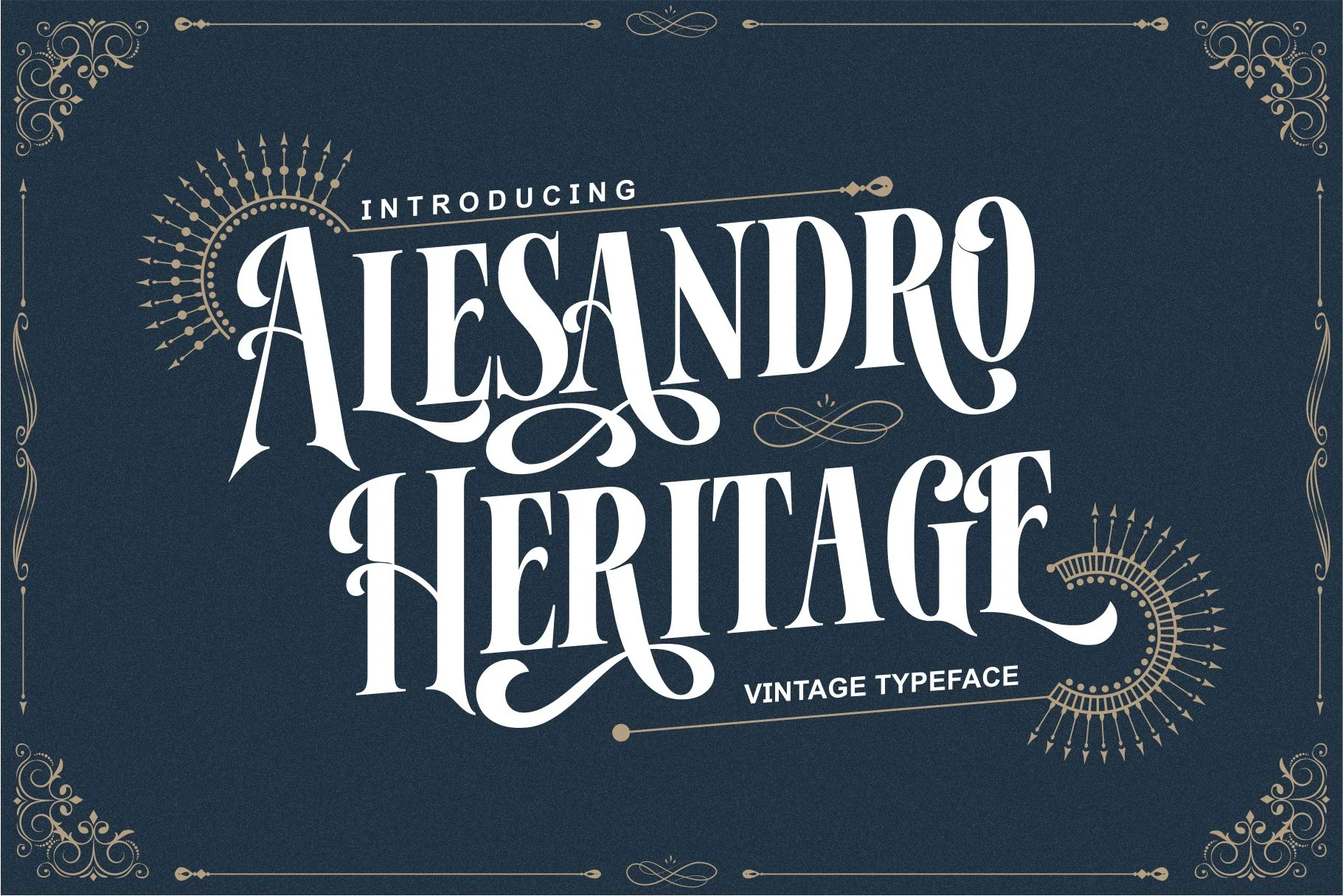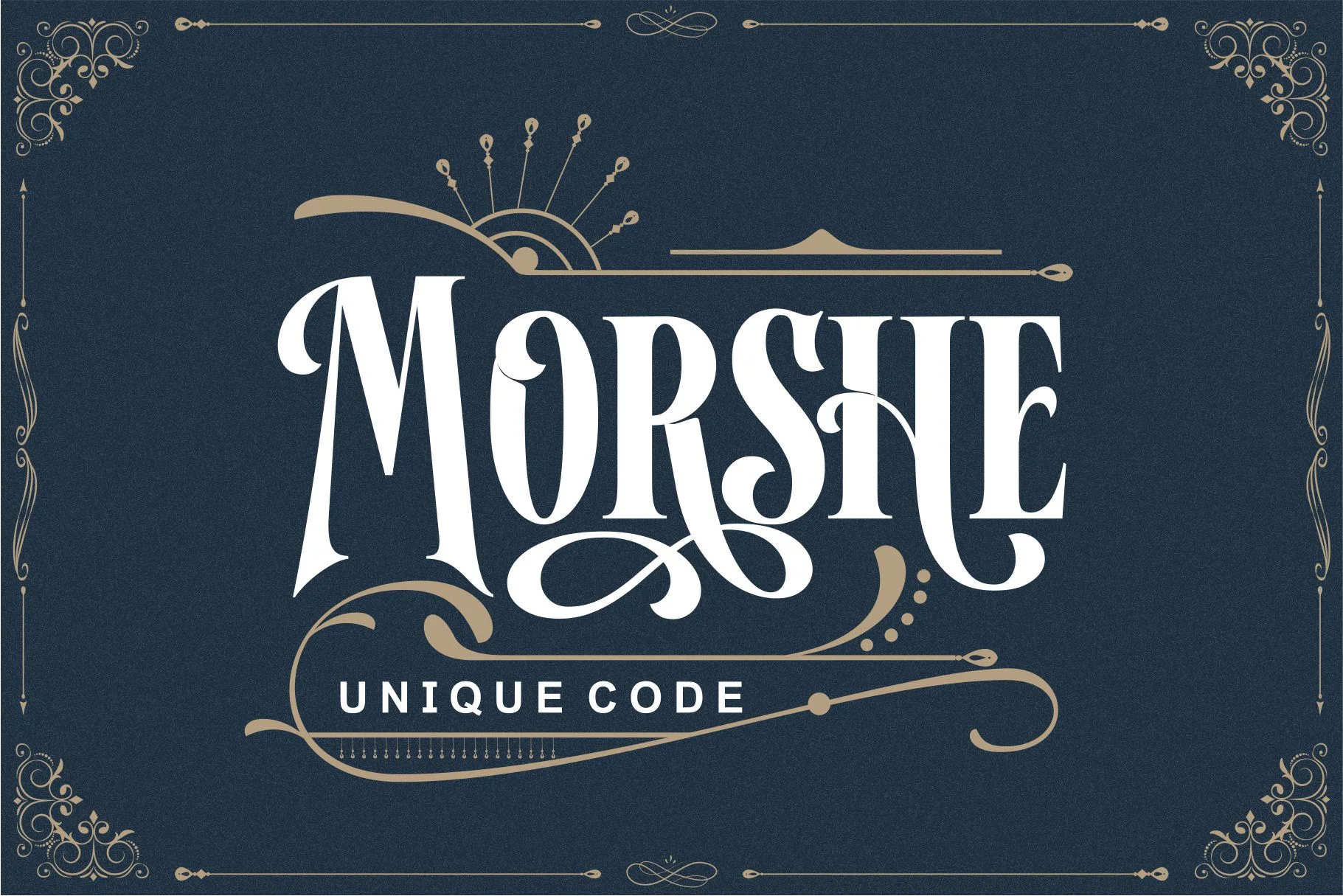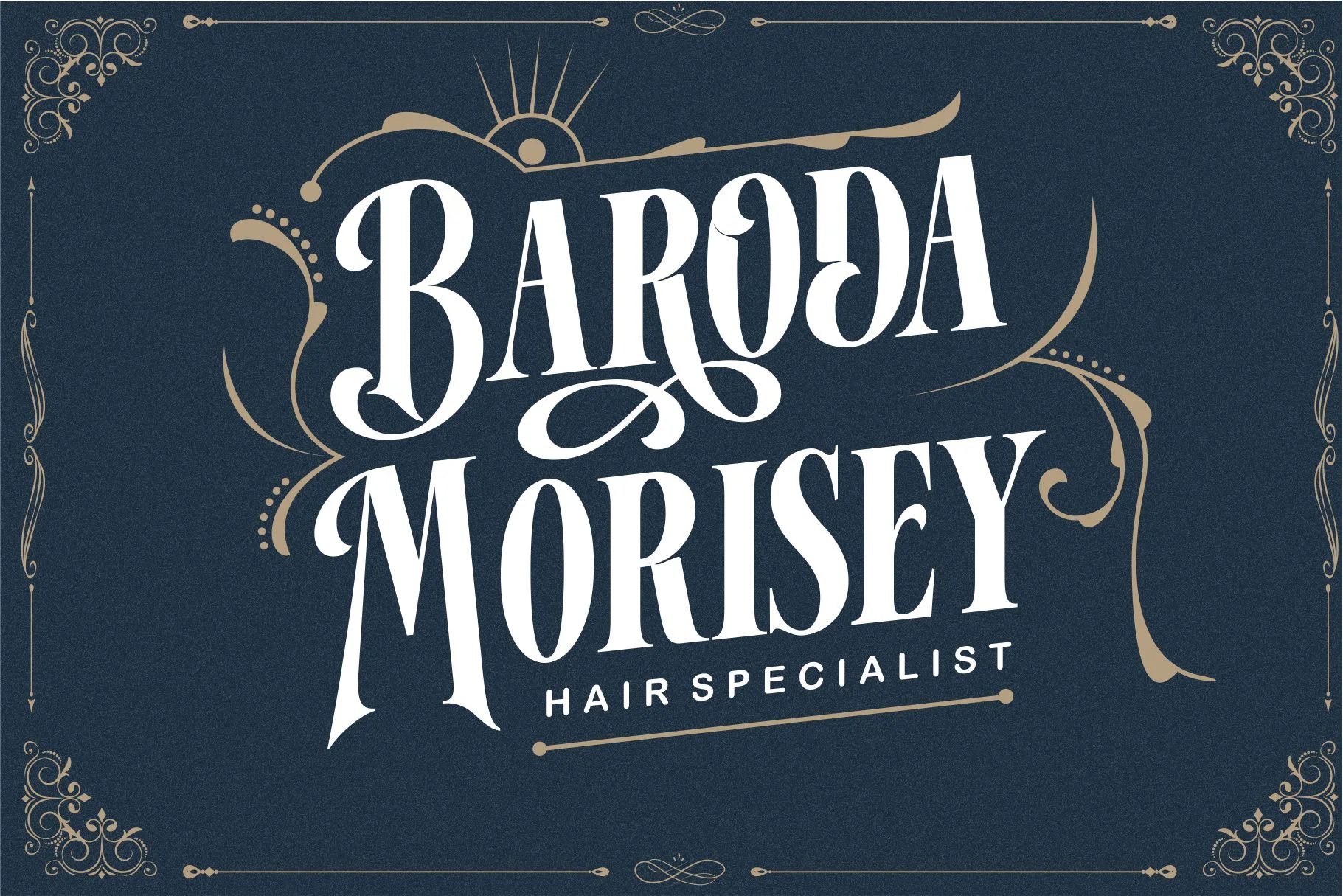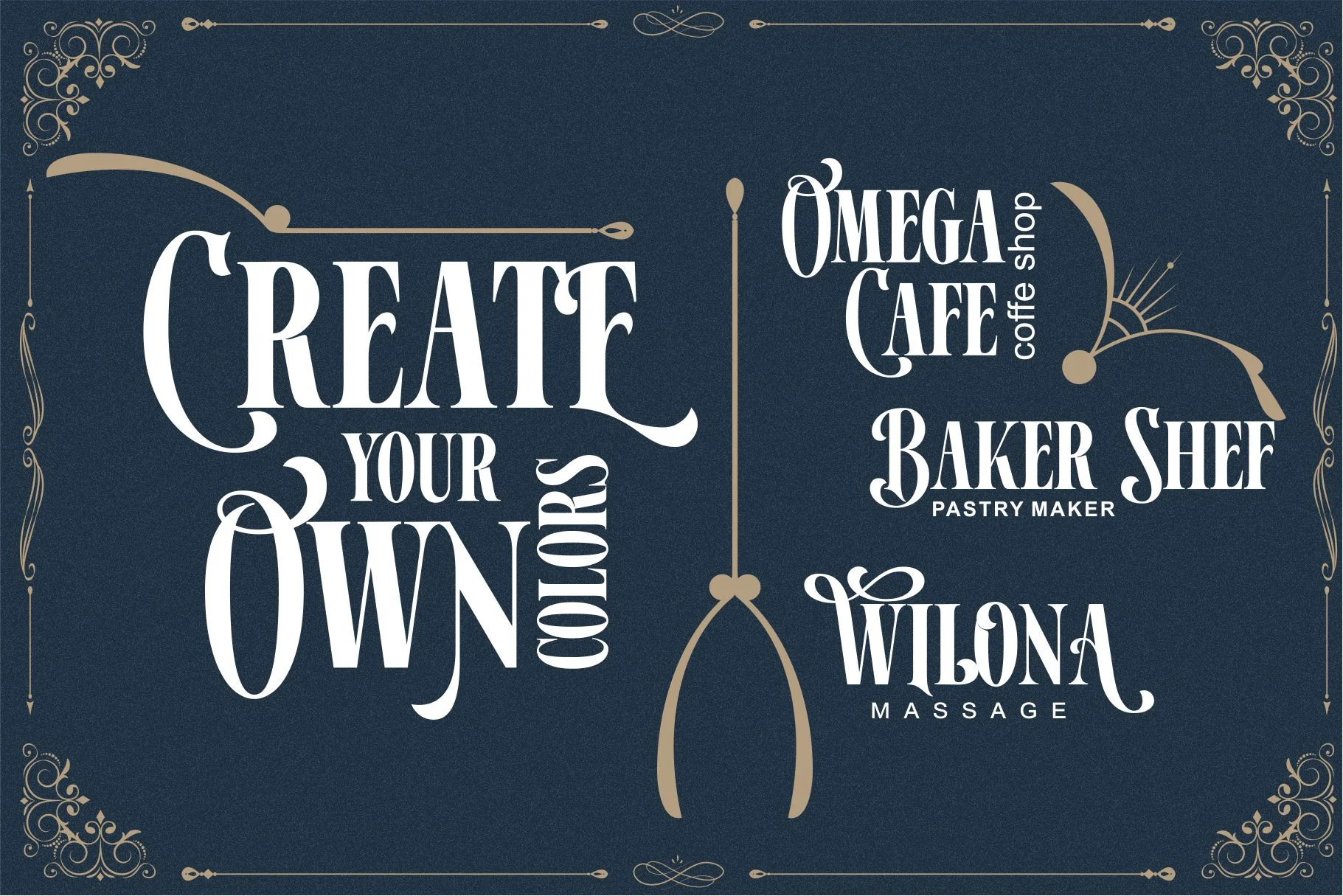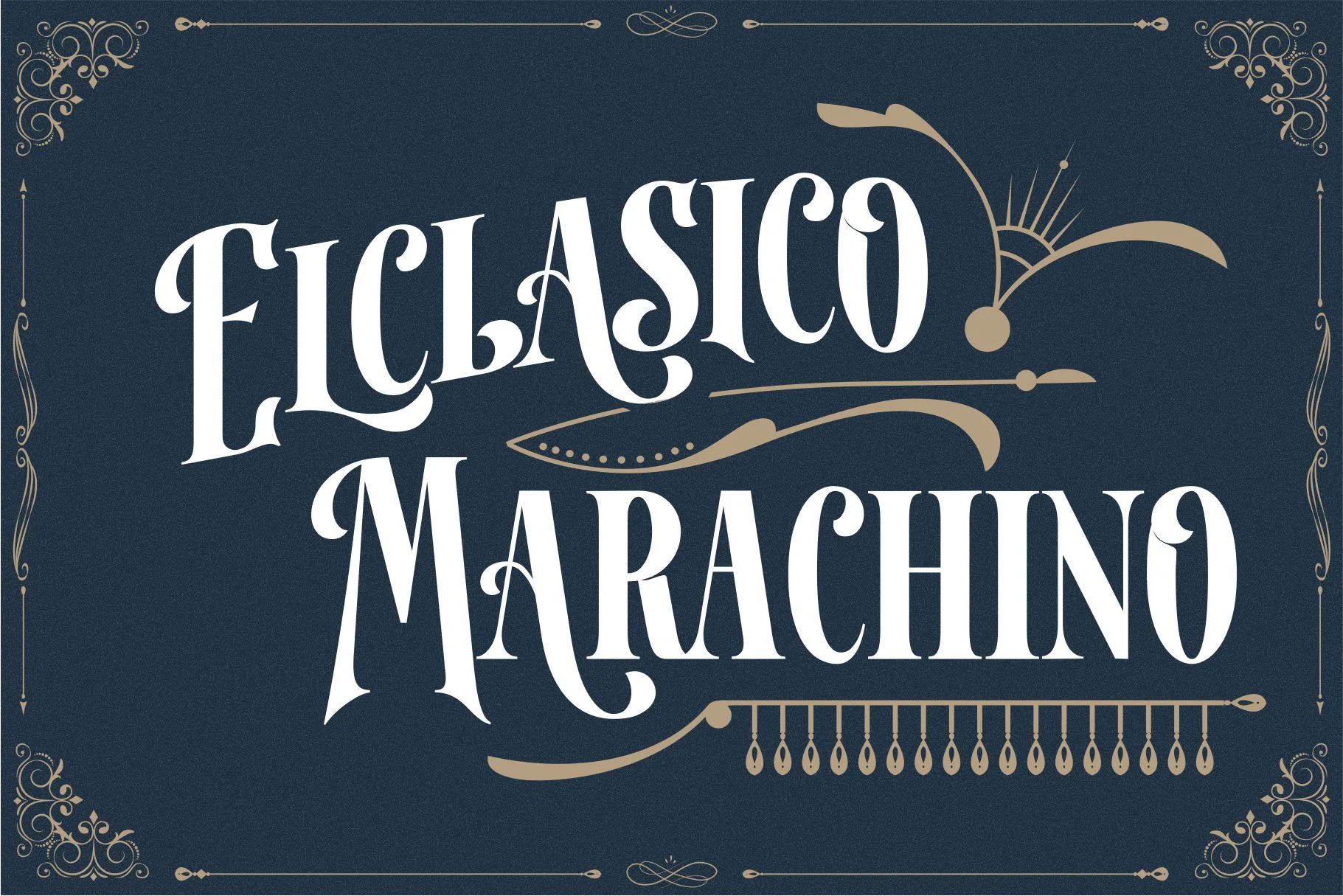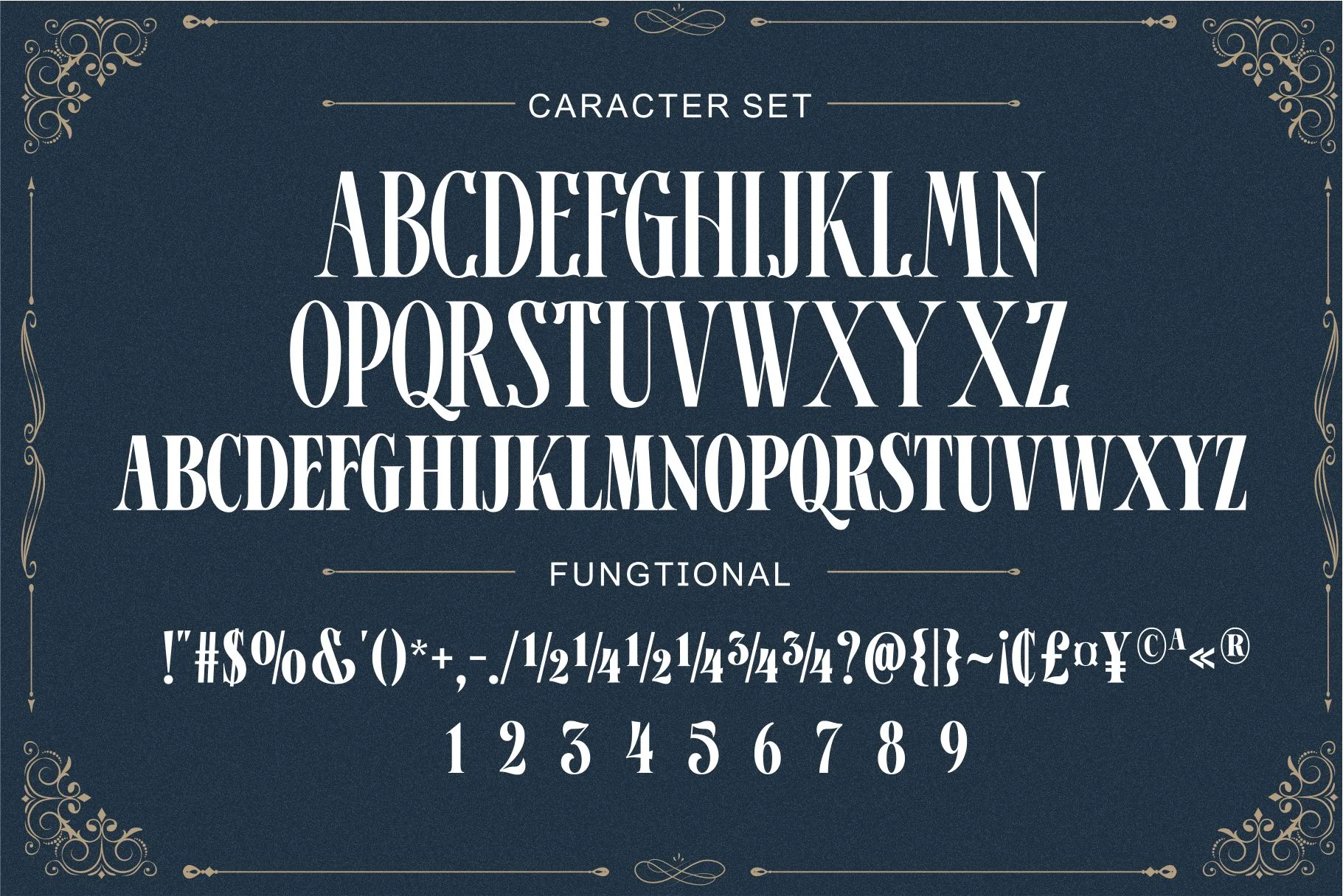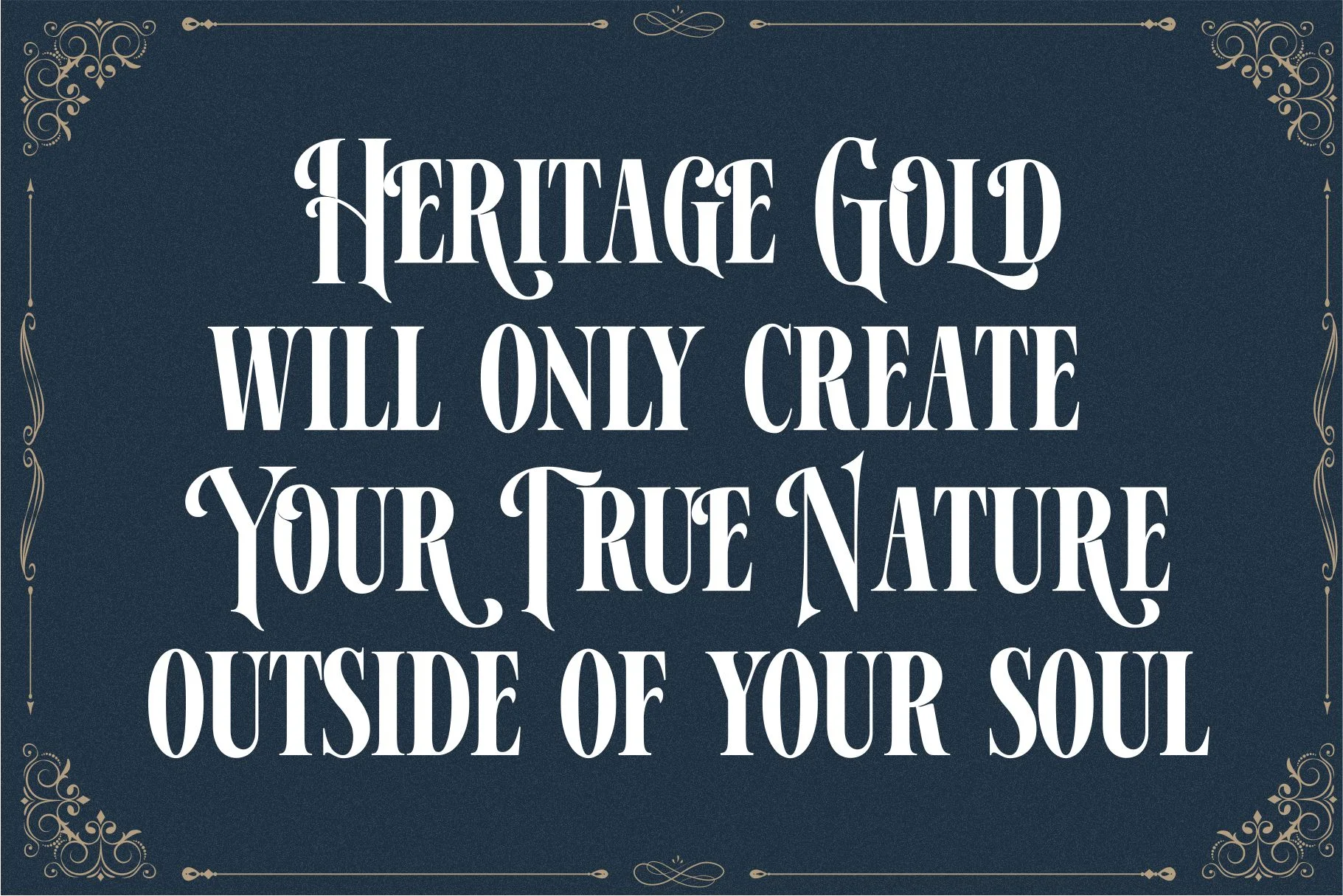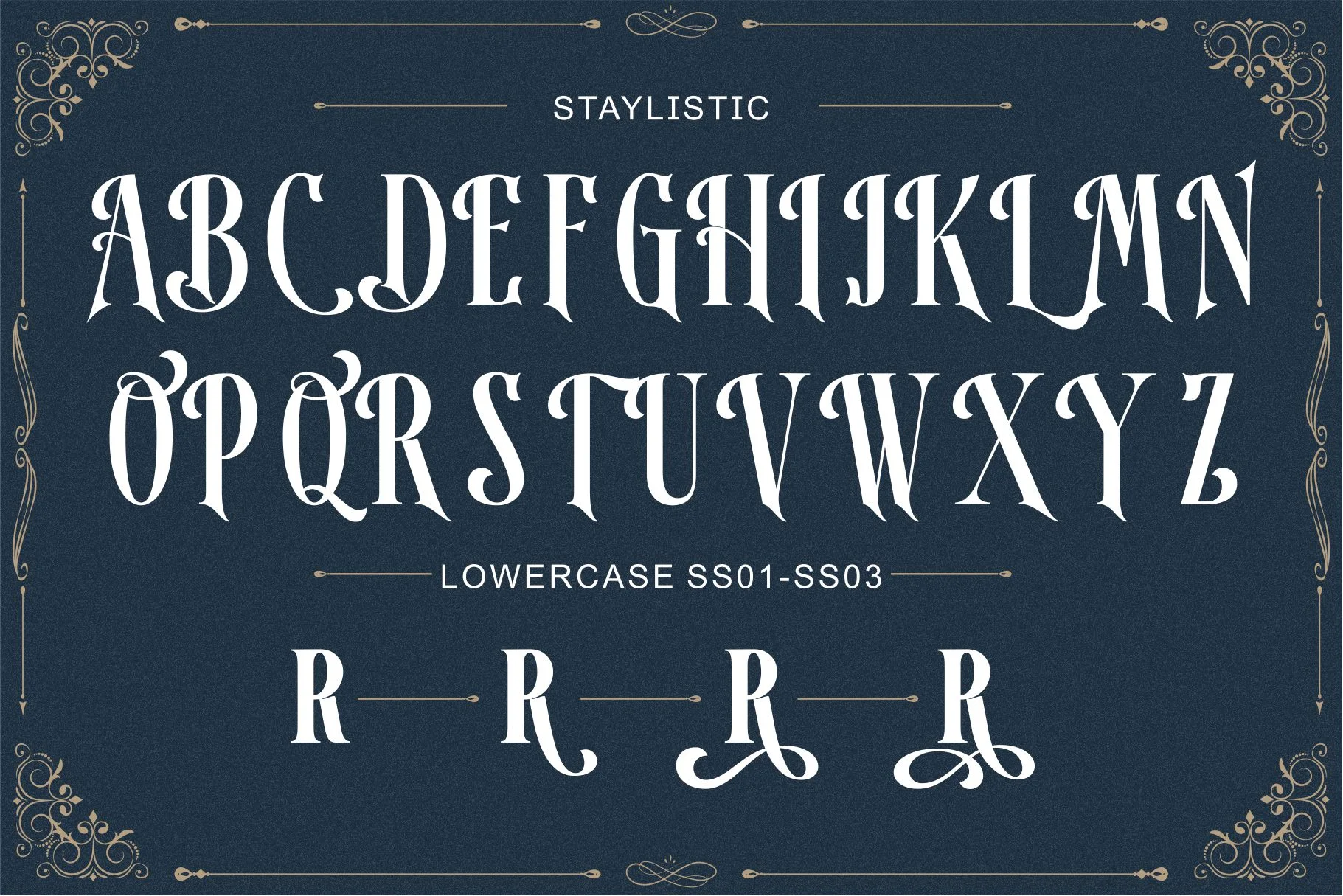
Alesandro Heritage
This font is a vintage serif display typeface with a classic, elegant character and rich decorative details. The letterforms feature high contrast between thick and thin strokes, combined with smooth curves, sharp serifs, and ornamental swashes inspired by classic and heritage typography.
The main characteristic of this font lies in the decorative ligature and flourish details, especially on capital letters like A, R, H, and G, which give a luxurious and artistic impression. The tall and slender proportions of the letters create a dramatic, authoritative, and classy appearance, particularly effective as a headline or main title.
This font exudes a sense of heritage, luxury, and vintage elegance, making it ideal for:
- Premium and heritage product branding
- Classic logos and exclusive visual identities
- Luxury packaging design
- Classic-themed posters, labels, and editorials
- Formal event design or cultural branding